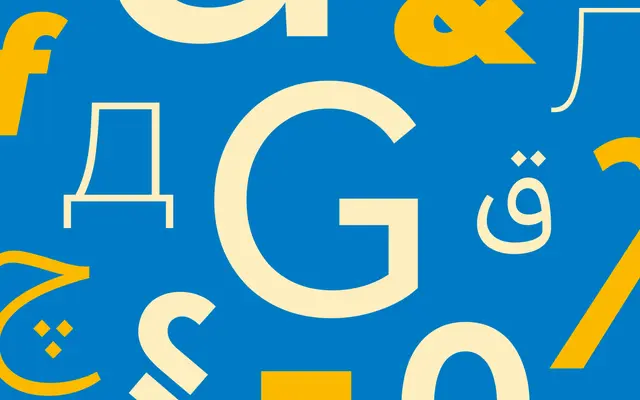
Effra
Dalton Maag · Jonas Schudel, Azza Alameddine, Hanna Donker, Fabio Haag, Ben Jones, Samir Reis, José Solé · 2024
A multi-script humanist sans drawing on Caslon Junior's early sans letters, Red Dot Design Award winner, with extensive Weight and Italic variable axes.
A humanist sans led by Jonas Schudel and developed with Azza Alameddine, Hanna Donker, Fabio Haag, Ben Jones, Samir Reis and José Solé, tracing its heritage to the early sans letters of Caslon Junior. Nine weights run from Hairline to Black with matching italics, and a 2-axis variable font handles Weight and Italic. Multi-script coverage across Arabic, Cyrillic, Greek and Latin Extended and a Red Dot Design Award make it a serious workhorse for global brand systems, editorial and product work that wants a calm, open voice.
Dalton Maag describe Effra as a contemporary humanist sans tracing its heritage to the early sans letters of Caslon Junior, Red Dot Design Award winner, with clean lines and open shapes across extensive Weight and Italic variable axes.